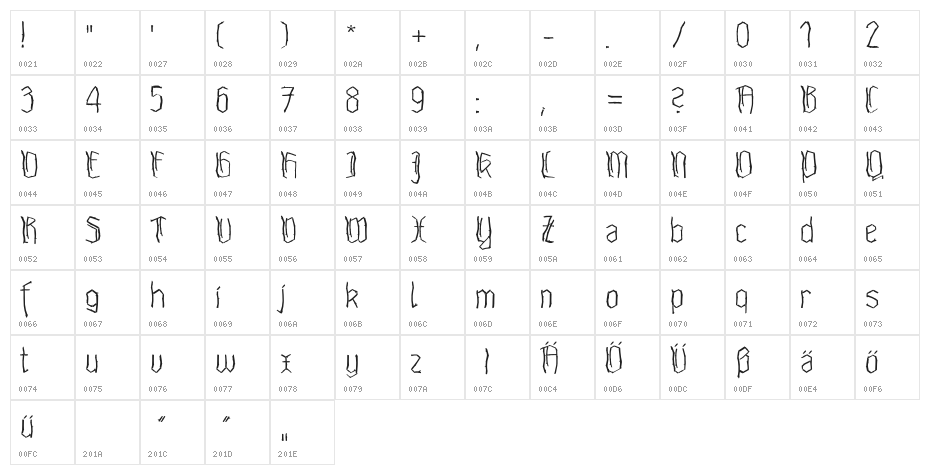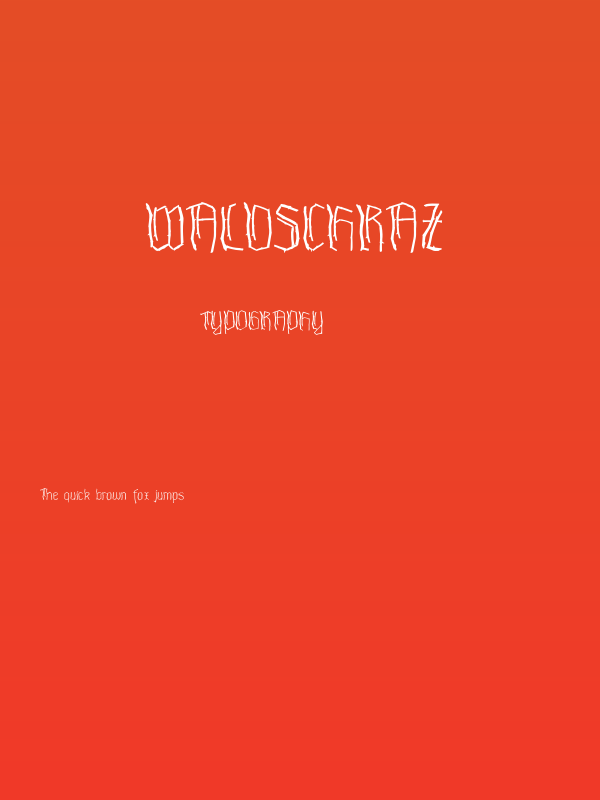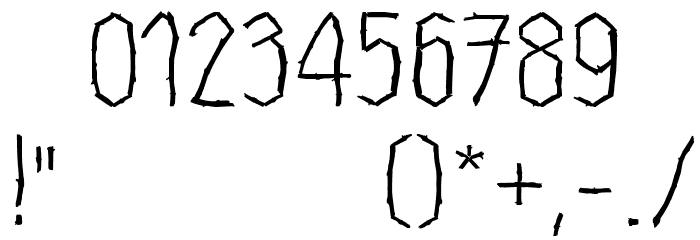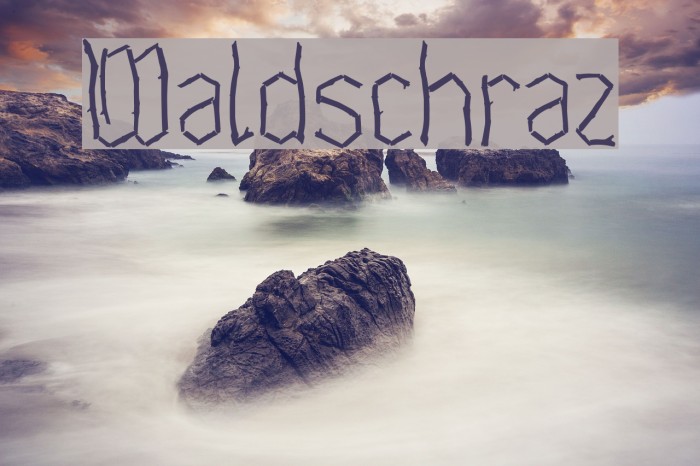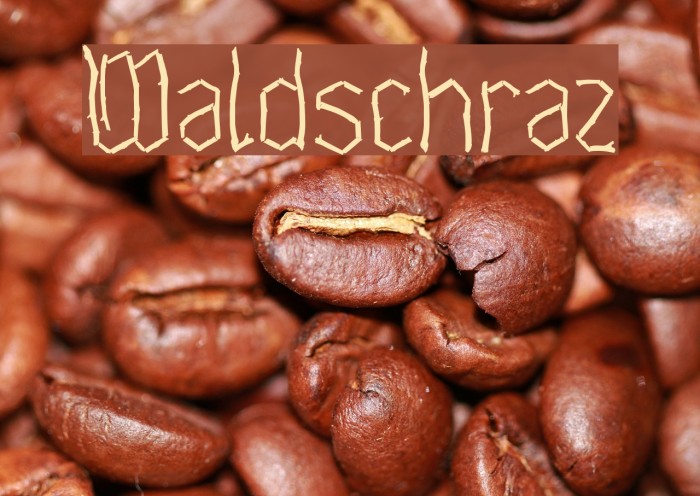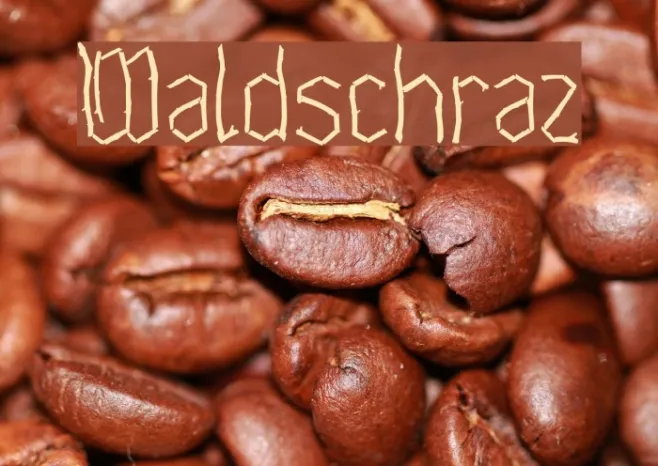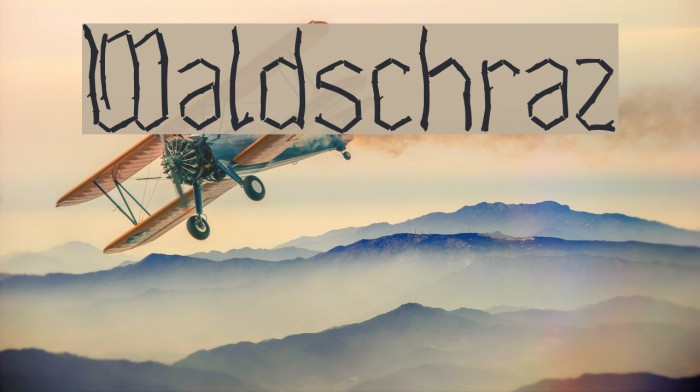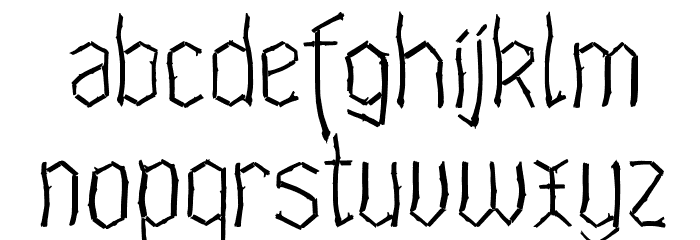
Waldschraz Font
Waldschraz Description
This font features a rugged, hand-drawn style reminiscent of natural elements like twigs or branches. The characters have an irregular, organic appearance, with uneven lines and angles that give it a unique, earthy charm. The uppercase and lowercase letters maintain a consistent theme, with sharp edges and a slightly distorted look that adds to its rustic appeal. Numbers and special characters follow the same design principles, ensuring a cohesive visual experience. The font's distinct style makes it ideal for projects that require a touch of nature or a handcrafted feel.
| Overall Style | Rustic, Organic, Handcrafted |
| Use Case | Logos, Posters, Invitations, Artistic Projects |
| Proposed Projects | Perfect for nature-themed designs, eco-friendly branding, rustic invitations, or artistic projects that require a handcrafted touch. |